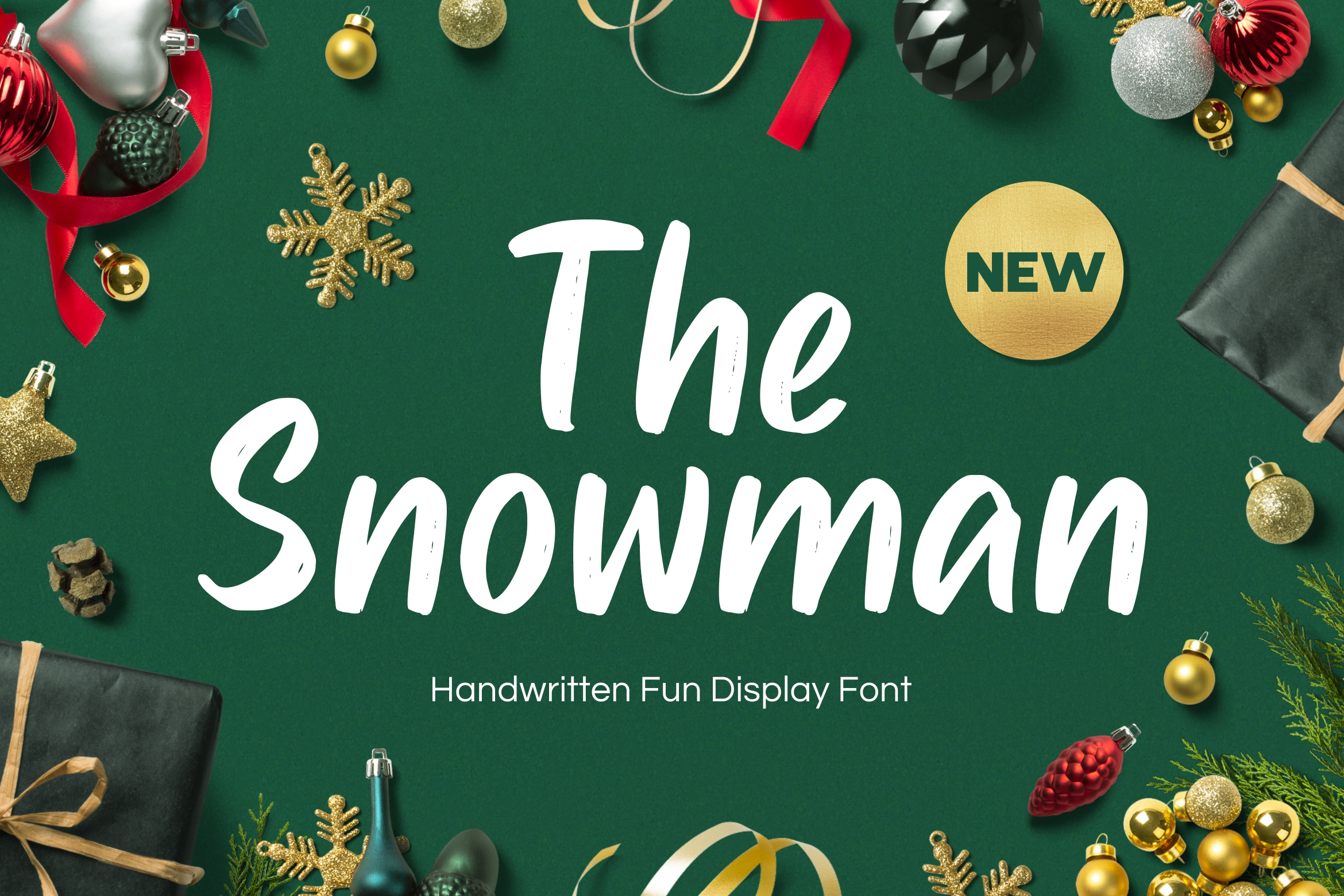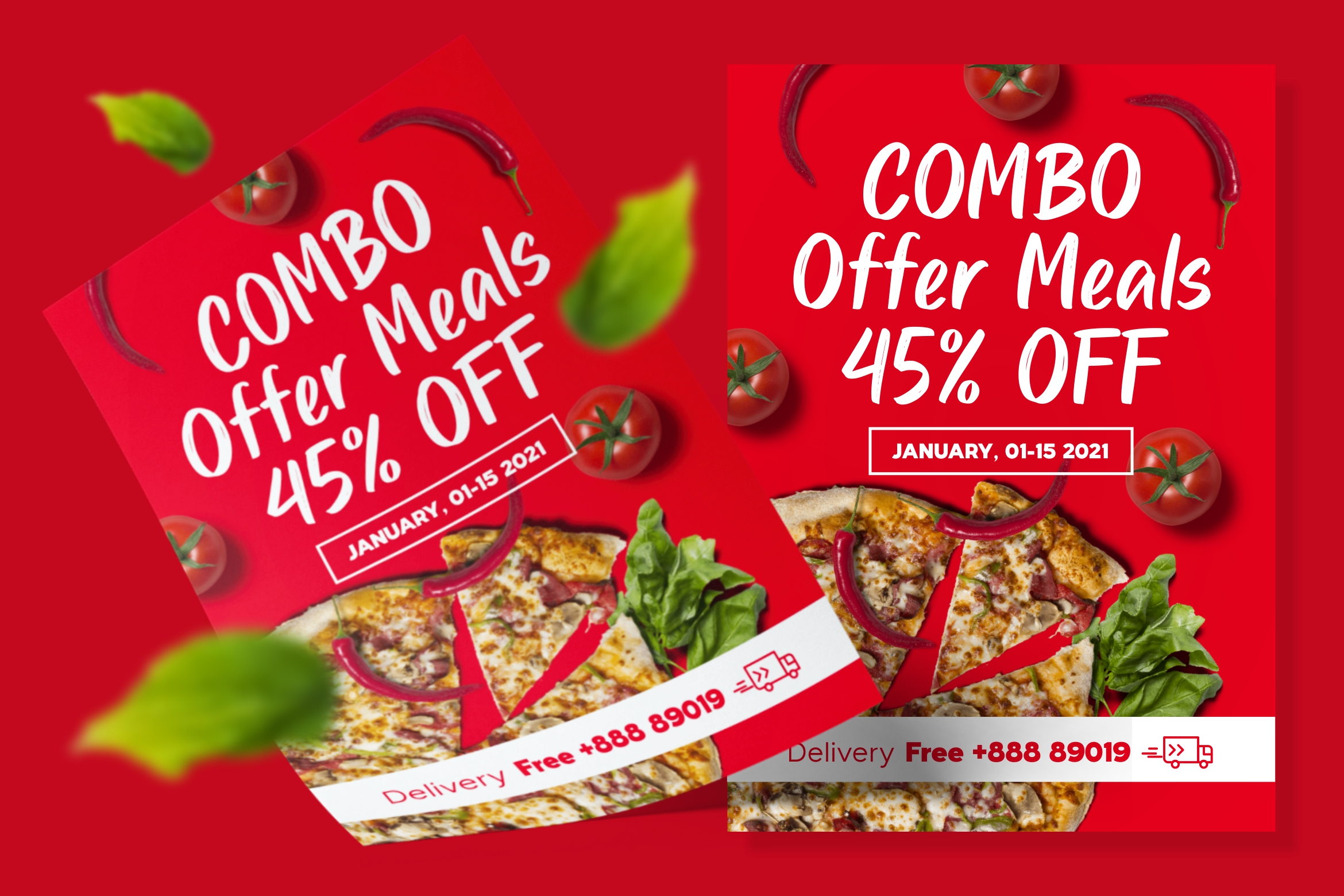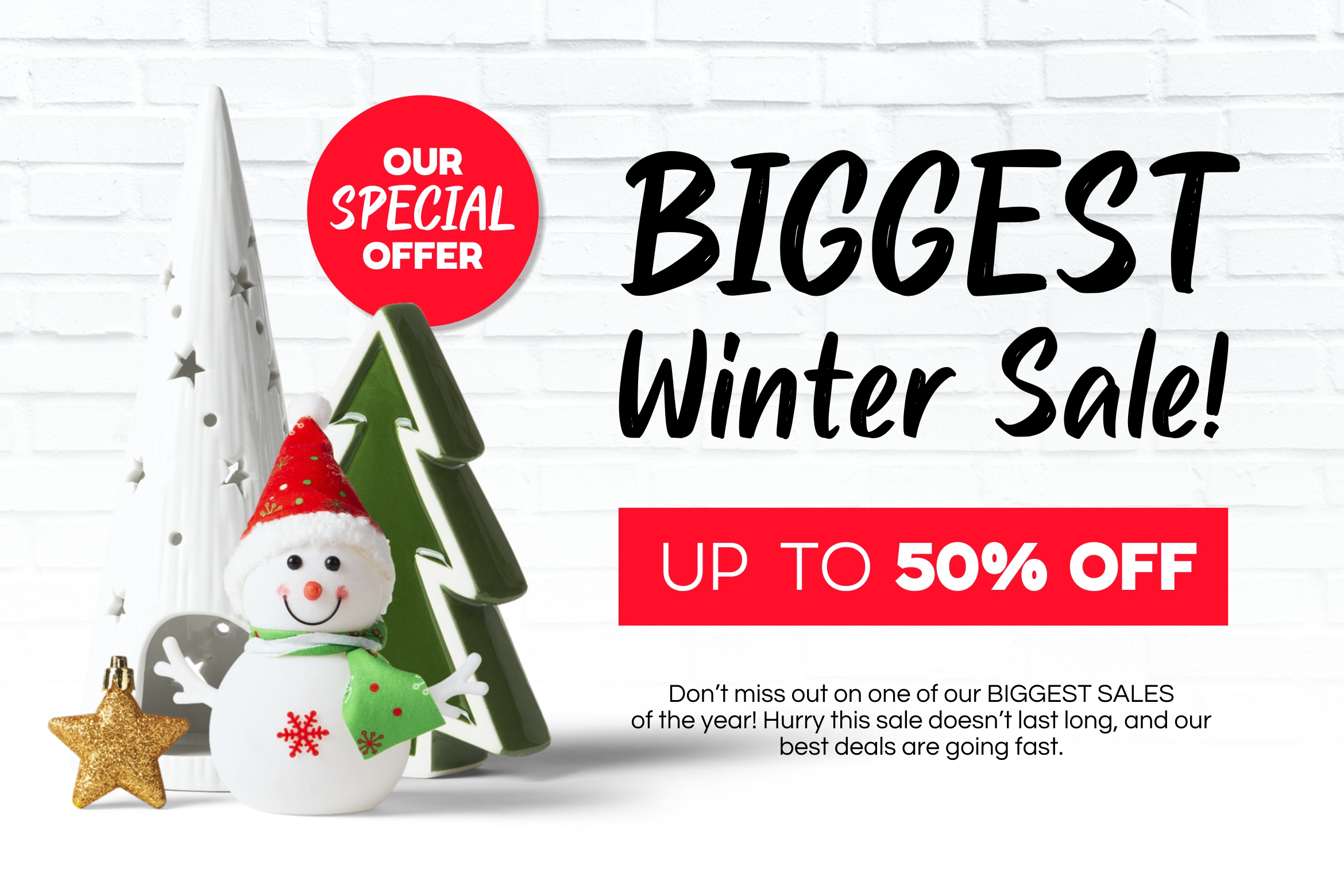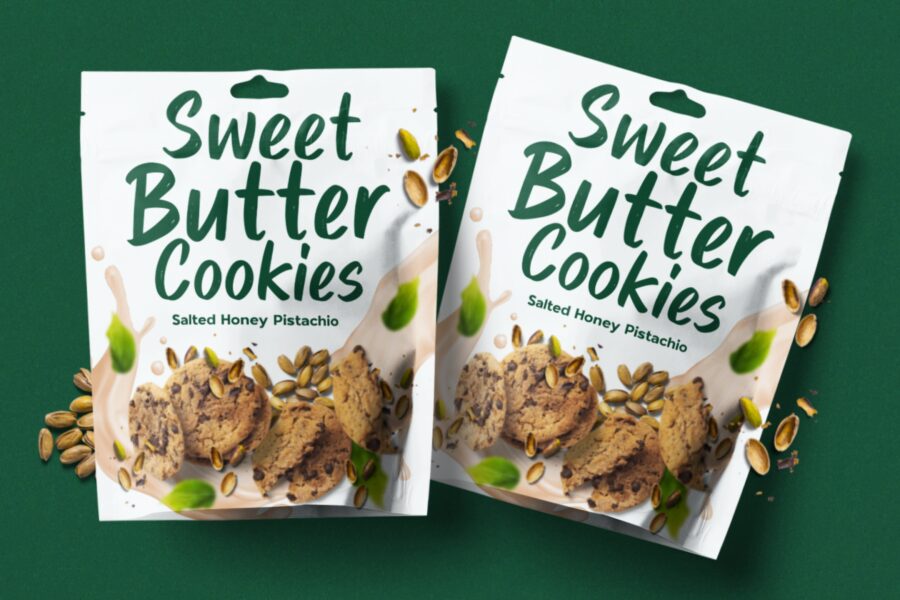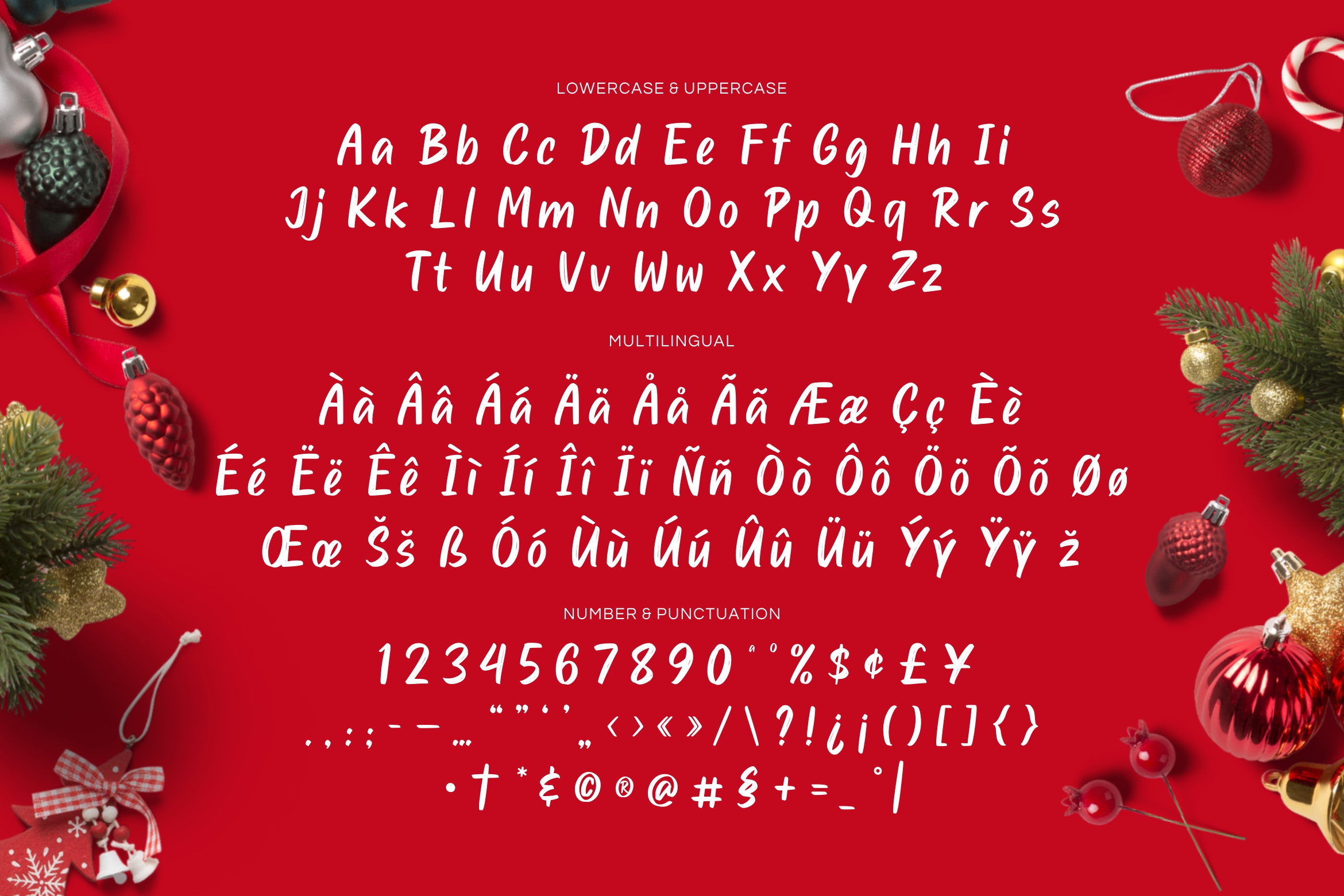
The Snowman is a bold and cheerful handwritten display font that brings festive warmth and friendly character to your designs. With its brush-style strokes and smooth flow, it’s perfect for holiday-themed projects, product packaging, food branding, social media campaigns, and cheerful promotions. The playful yet legible letterforms make it a favorite for eye-catching headlines and casual typography.
Designed with multilingual support and a full range of punctuation, The Snowman is both creative and practical. Whether you’re preparing a Christmas sale flyer, cookie label, or fun social post, this font adds a joyful and handmade touch that evokes winter magic and celebration.
Snowman
Fype Co.